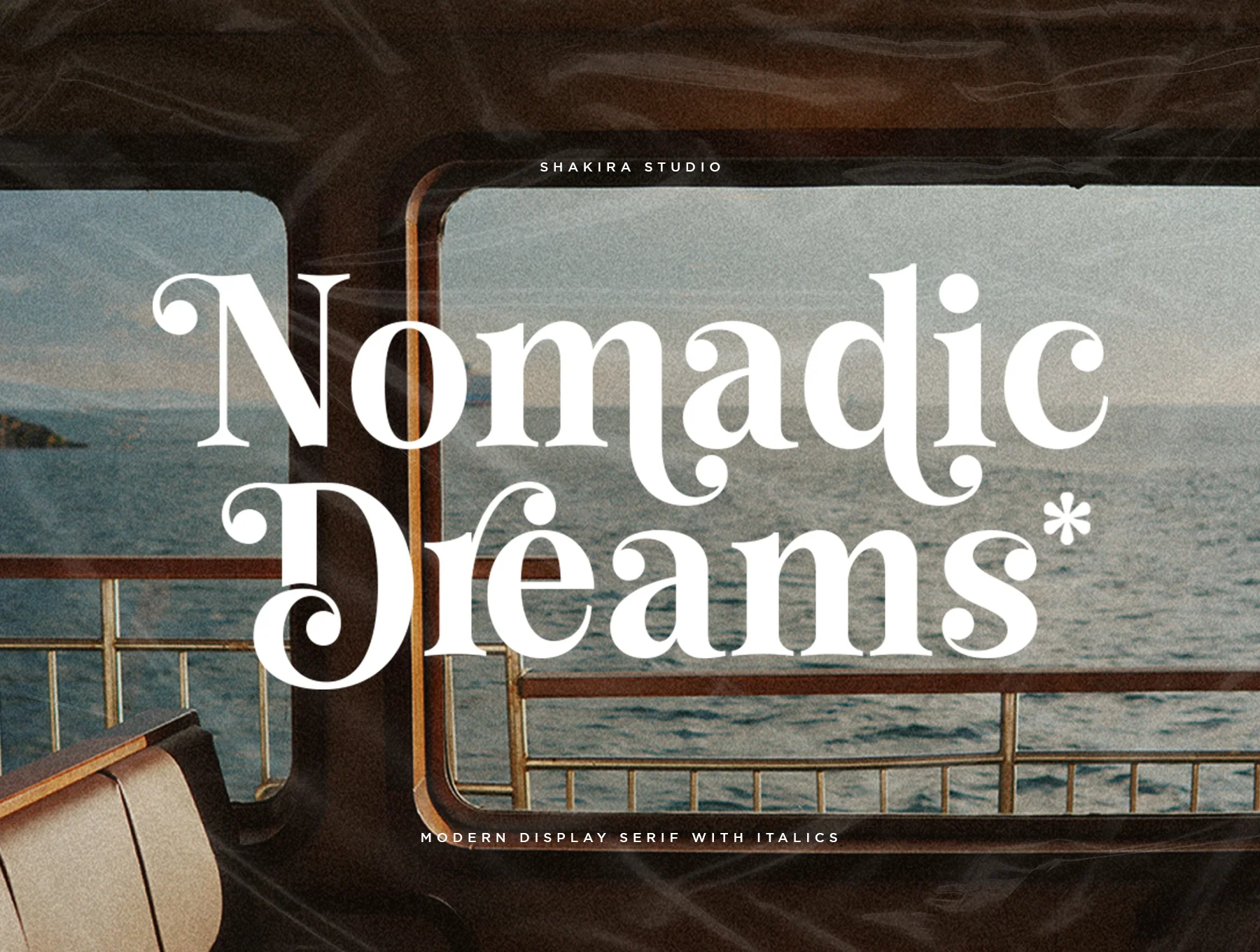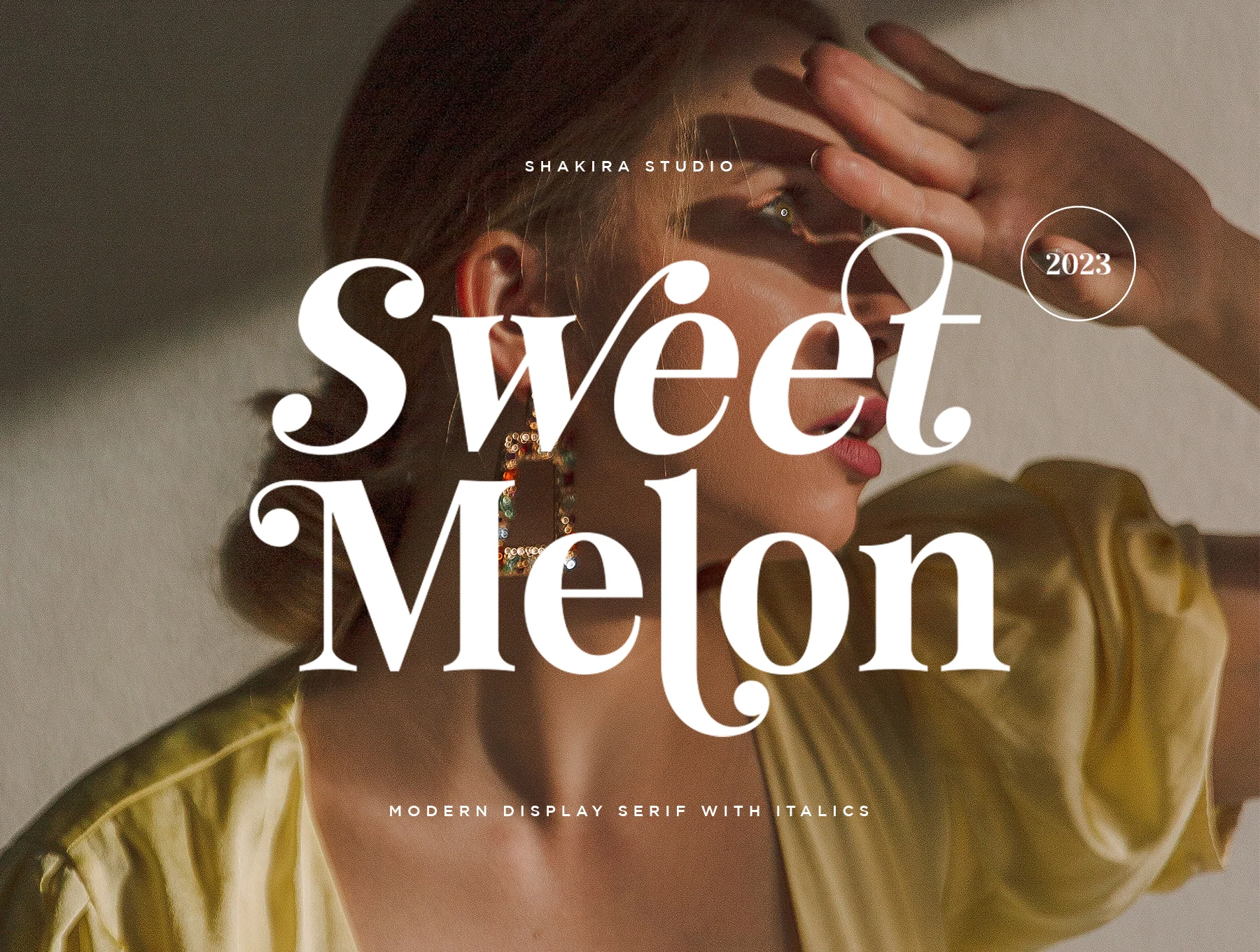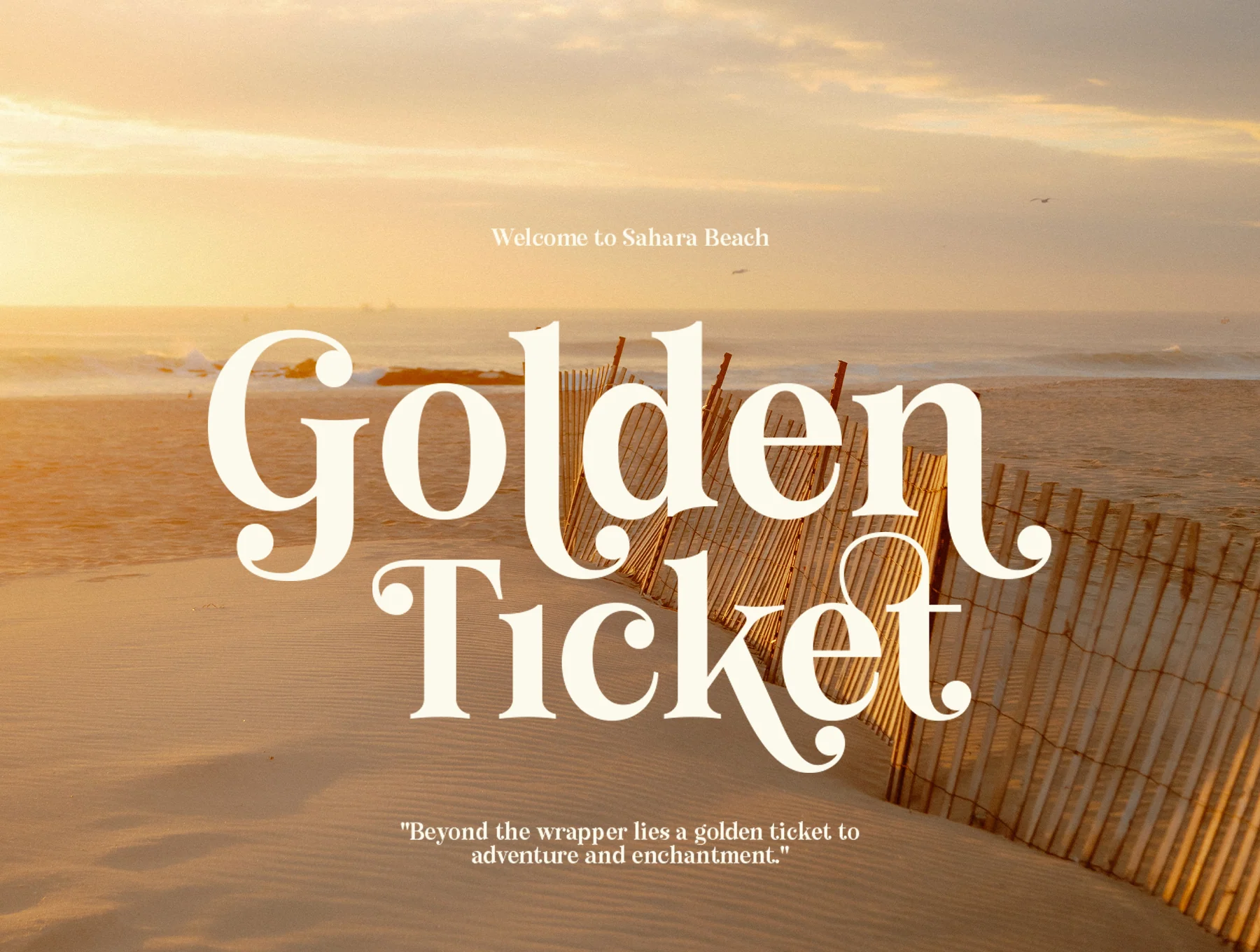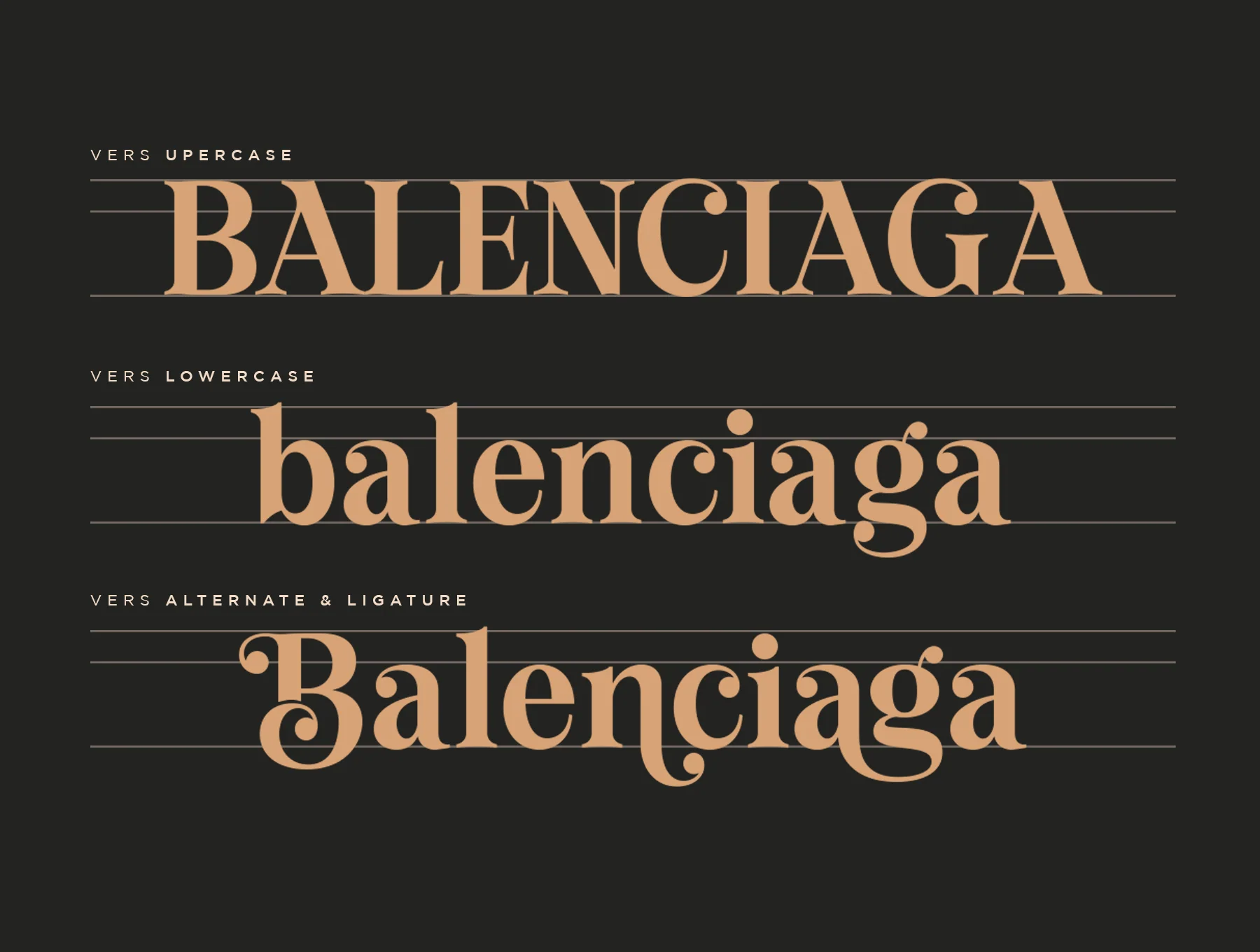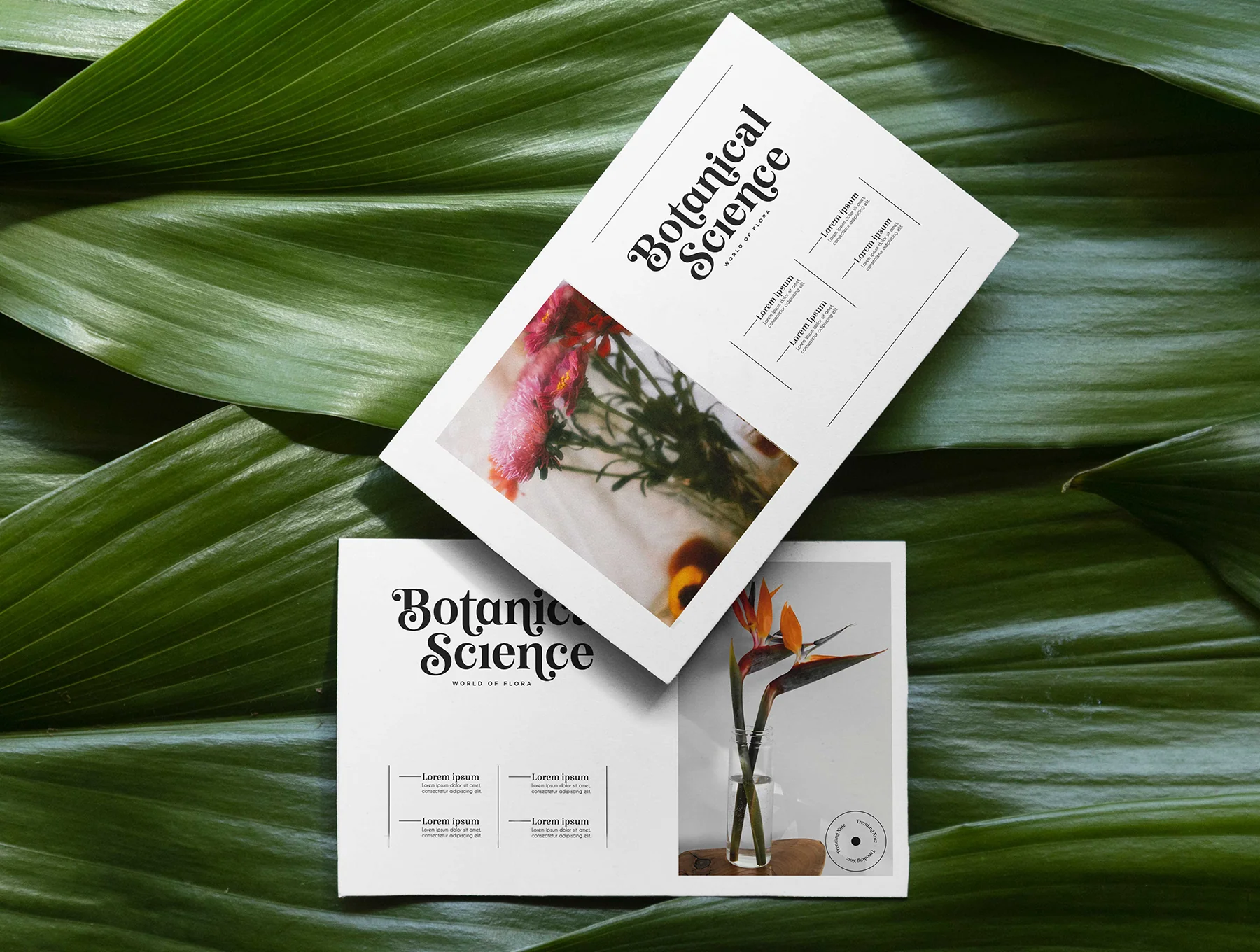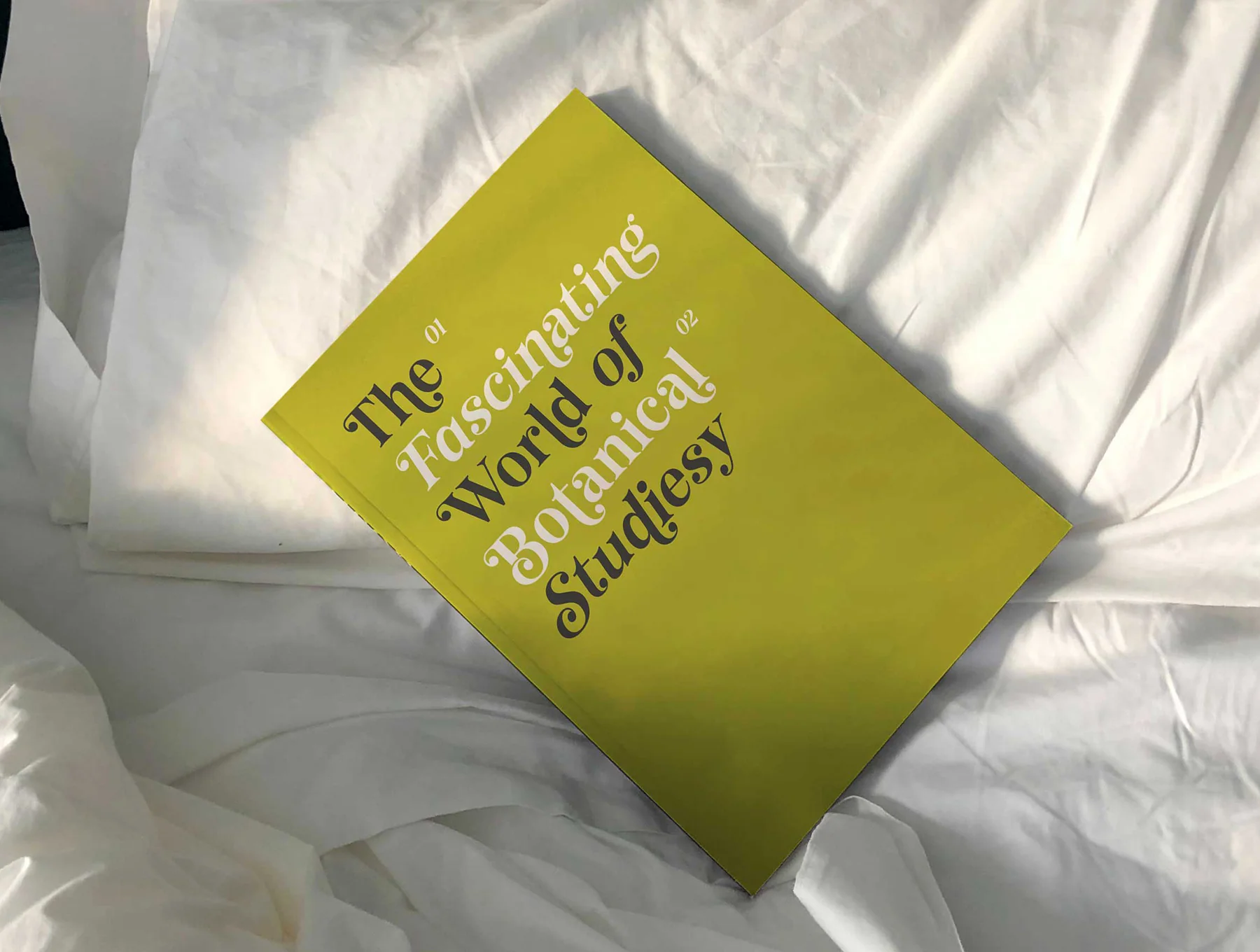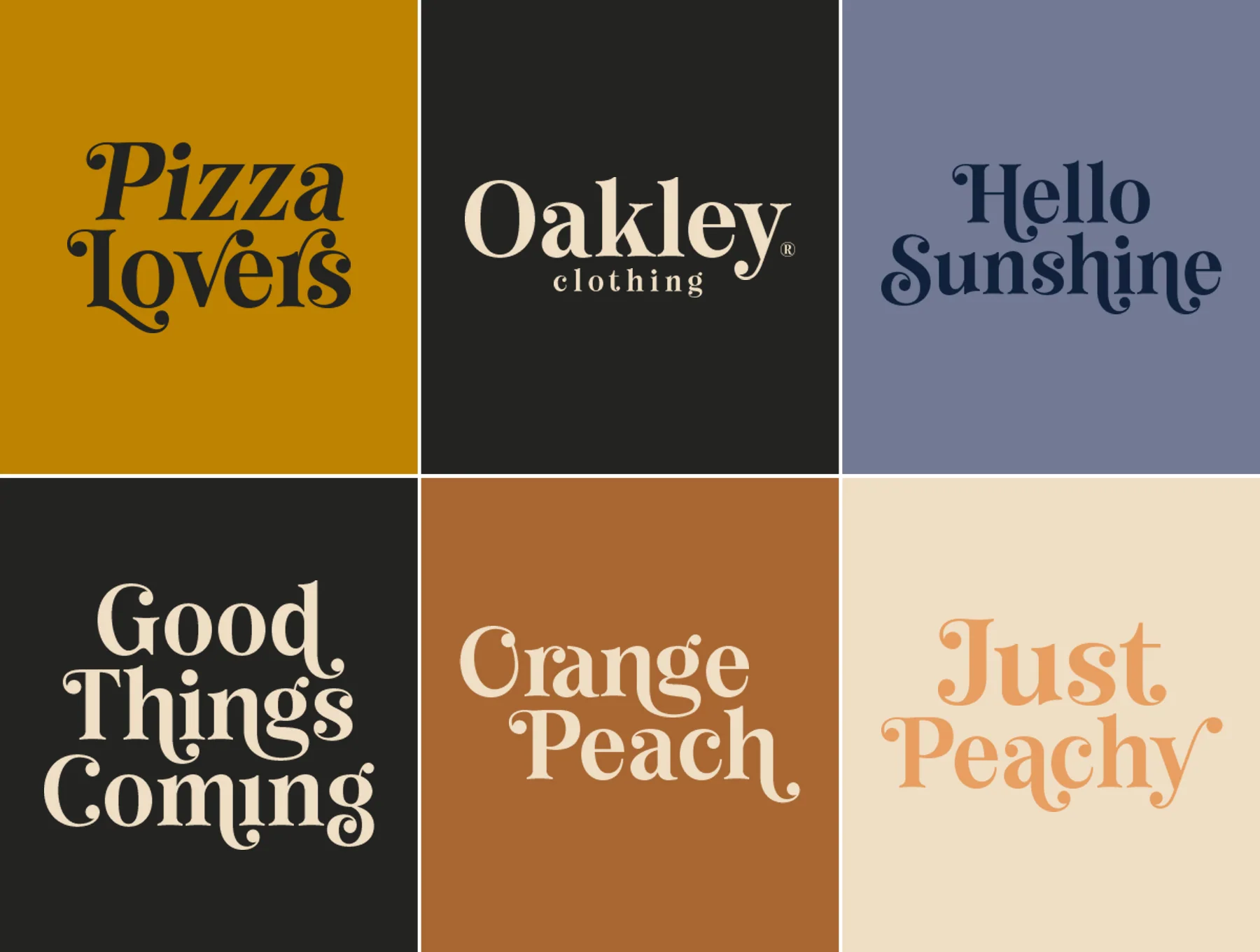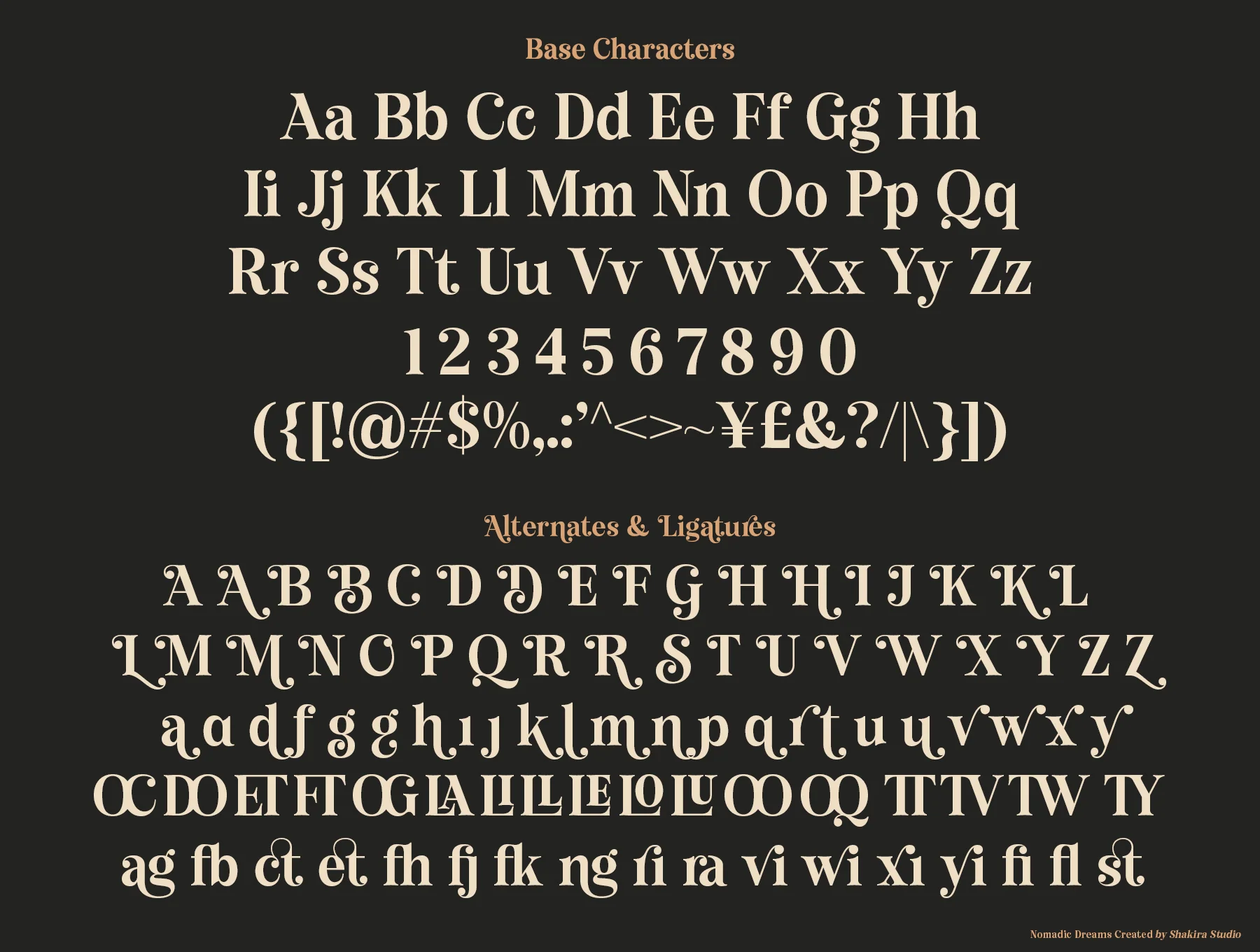
Nomadic Dreams – Modern Serif Font
Contemporary serif typeface featuring elegant alternates and ligatures
Standard A–Z and a–z characters
Numerals plus functional symbols
Alternates and ligatures
Nomadic Dreams is a refined modern serif with crisp forms, elegant readable serifs, and rich alternates plus ligatures for flexible styling from classic to playful. Ideal for branding, editorials, invitations, and sophisticated projects. Includes Regular/Italic in OTF, TTF, WOFF, multilingual support, OpenType features, PUA encoding, and compatibility with Adobe apps and Word.